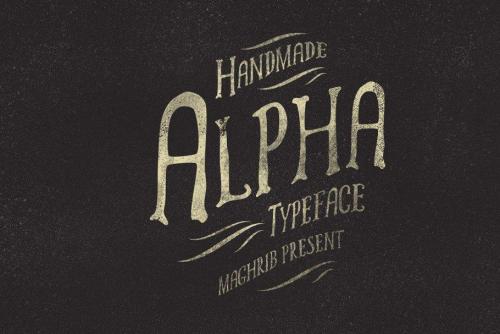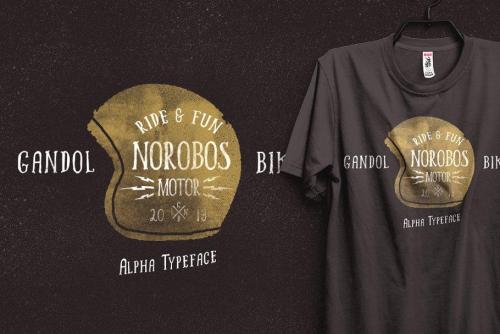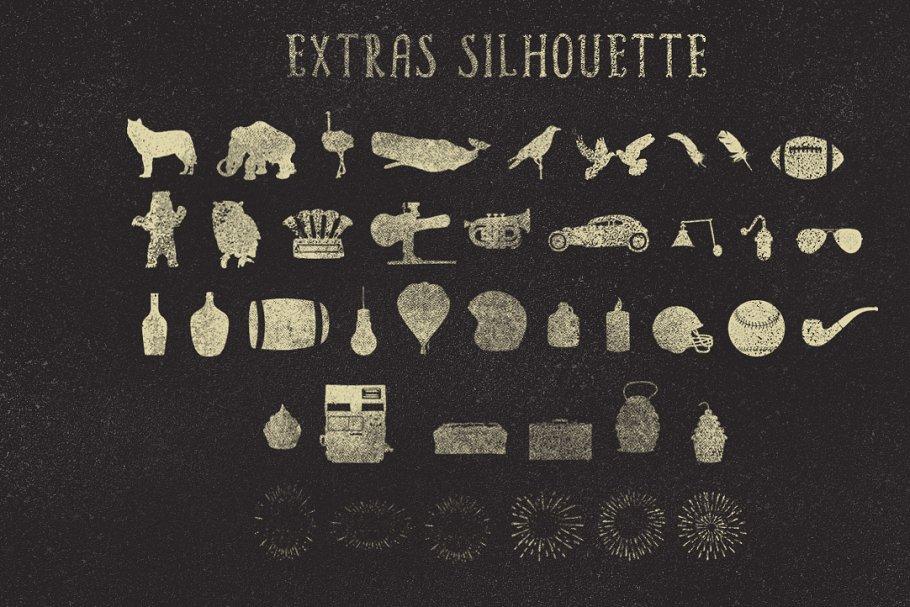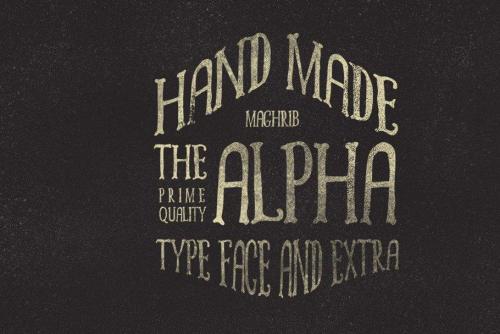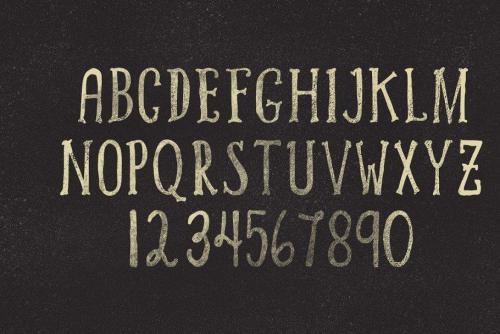
Alpha Rough Font Family is taken from the Greek language philosophical. The meaning of alpha is the “first letter”. Where the first letter is the letter that was first remembered and always be the first place in the alphabet series.
Similar to this alpha typeface, hope this font be the first choice font to use. Alpha typeface inspired by the style of vintage hand drawn.